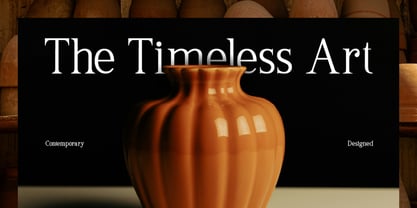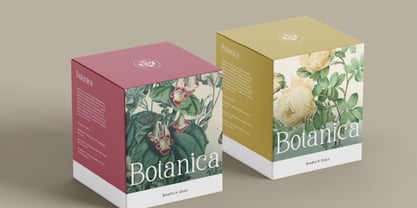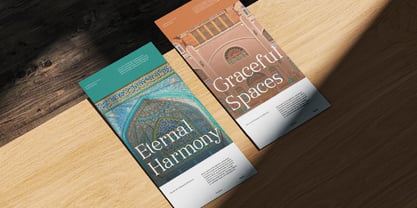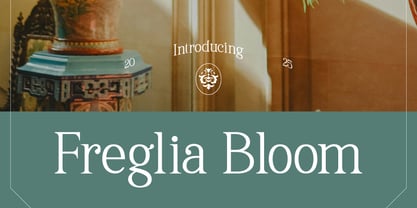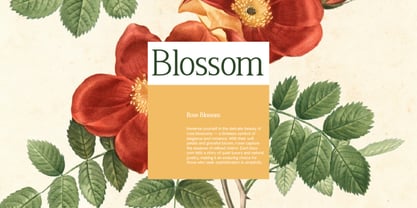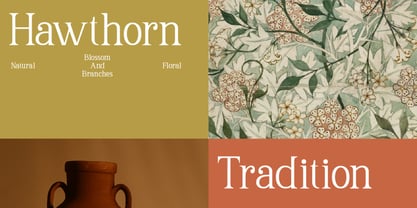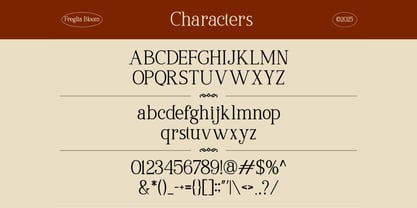
Freglia Bloom
von Vadova Std
Die Schriftfamilie Freglia Bloom wurde von entworfen und von Vadova Std veröffentlicht. Freglia Bloom enthält 1 Stile. Mehr über diese Familie
Freglia Bloom is a graceful serif typeface that blends classic charm with modern elegance. With its refined curves, high contrast strokes, and delicate details, this font is ideal for editorial design, luxury branding, packaging, wedding invitations, and more. Freglia Bloom is ideal for creative professionals and brands seeking sophistication and romantic flair. It's particularly relevant in luxury markets, including beauty, fashion, weddings, floristry, publishing, and artisanal products.
Foundry: Vadova Std